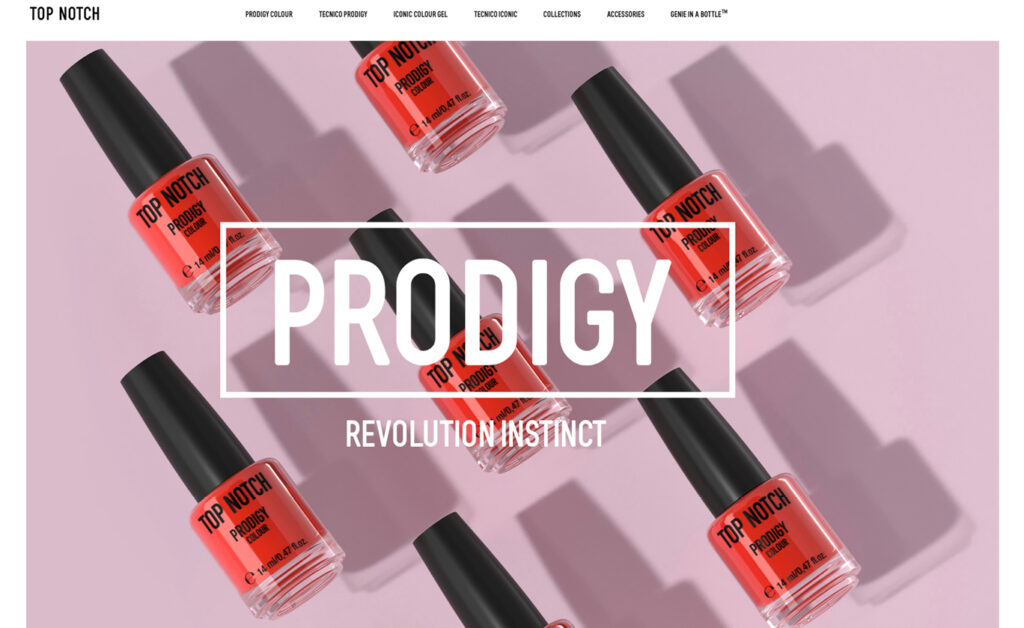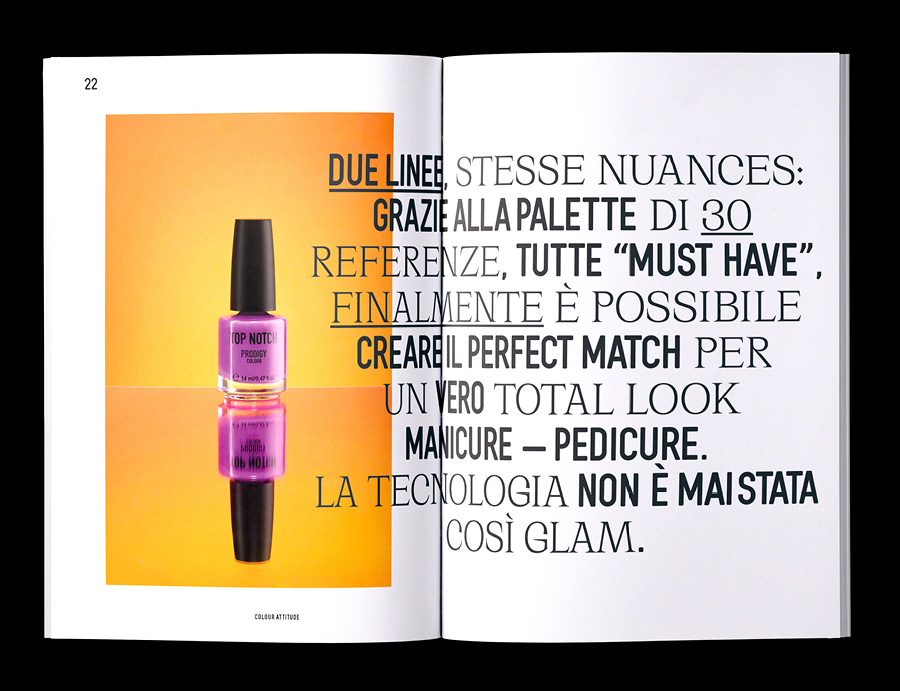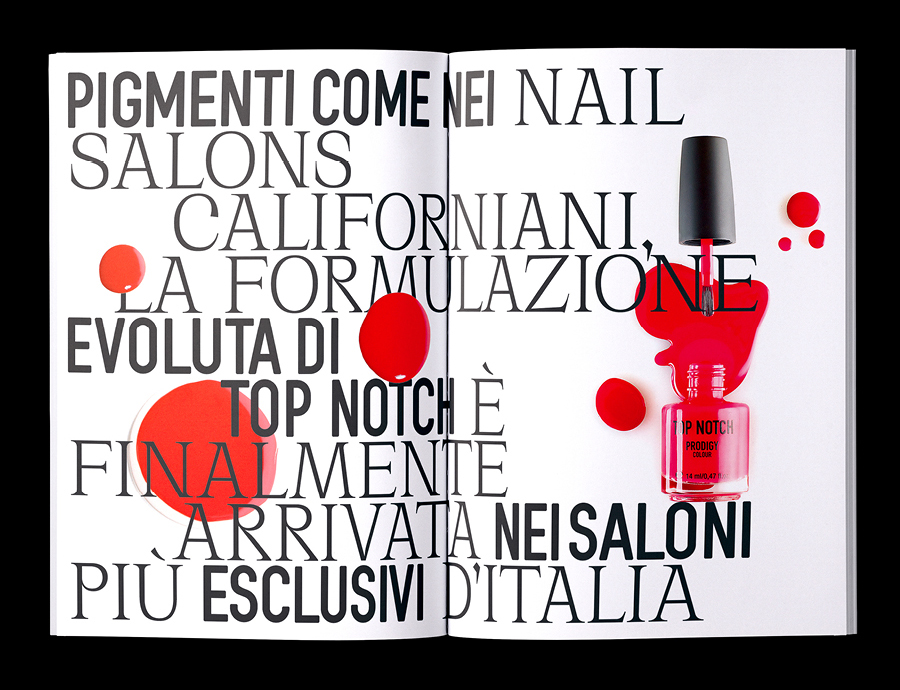
Top Notch
Italian-based consumer brand Mesauda Milano approached Salt & Pepper to develop and launch their new brand. A visual identity for the brand, creating a versitile strong identificabile typeface, with a strong visual impact.
Due to the application on small bottles, a condened typeface was developed to maximise the leggibility, in 4 weights.